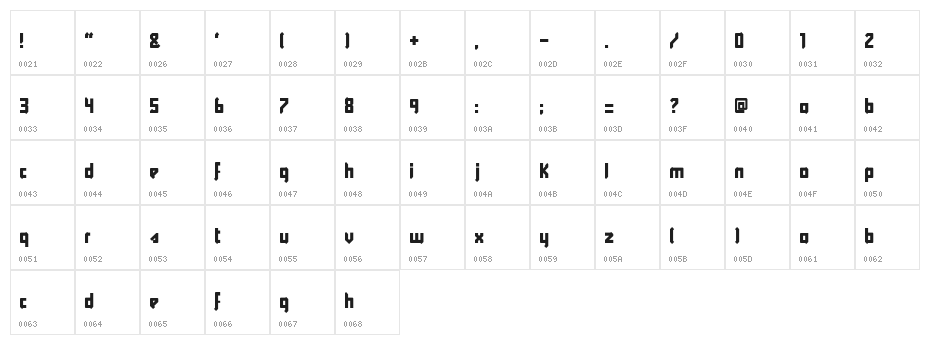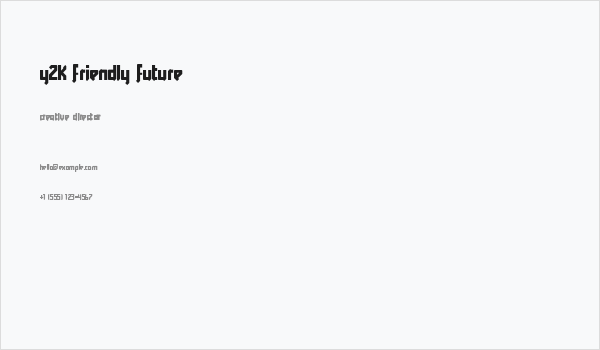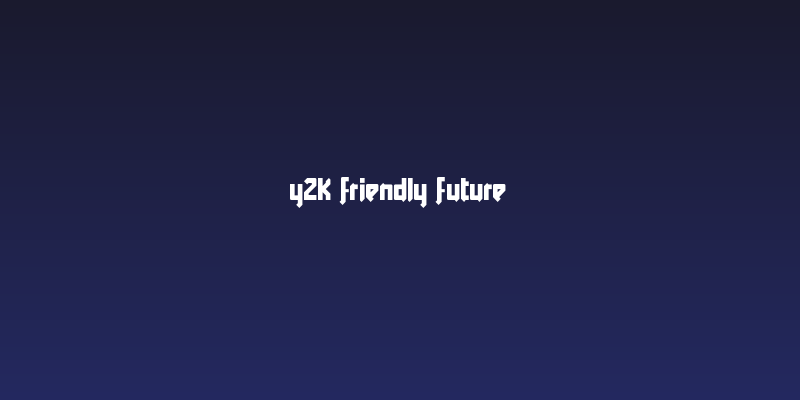
Y2K Friendly Future Font
Y2K Friendly Future Description
This font features a bold, futuristic design with angular edges and a geometric structure. The characters are uniformly styled with a consistent thickness, giving it a strong and assertive presence. The uppercase and lowercase letters maintain a cohesive look, with subtle variations to distinguish them. Numbers and special characters are crafted with the same attention to detail, ensuring a harmonious appearance across all glyphs. The font's style is reminiscent of digital and technological themes, making it ideal for projects that aim to convey a sense of modernity and innovation.
| Proposed Projects | Ideal for tech-related branding, video game titles, futuristic posters, and digital media. |